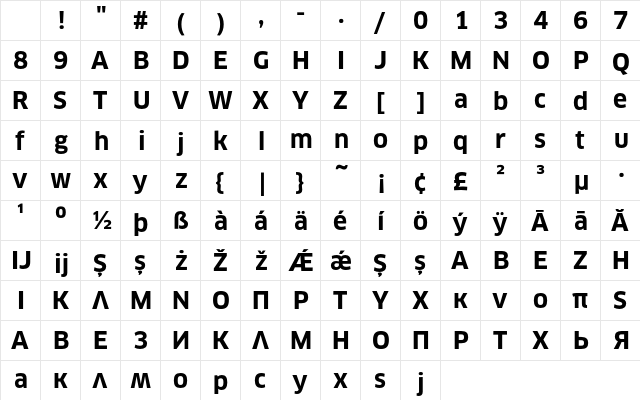
Complete ClanPro Bold glyph index. Displaying only characters natively supported by ClanPro Bold font.
ClanPro is a composed and adaptable typeface that performs quietly and consistently across a wide range of design contexts. Its bold stroke weight gives it real presence on the page.